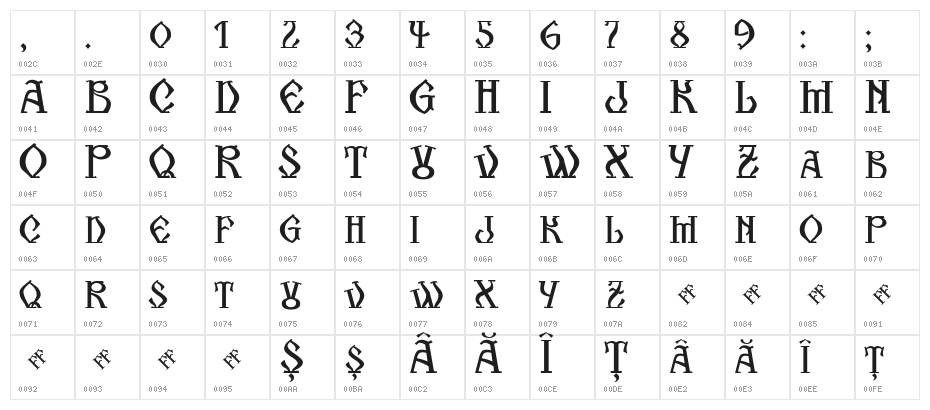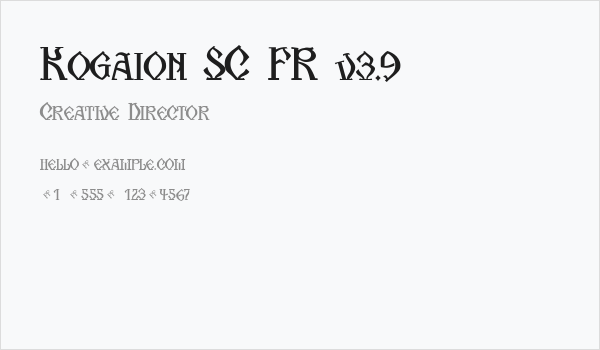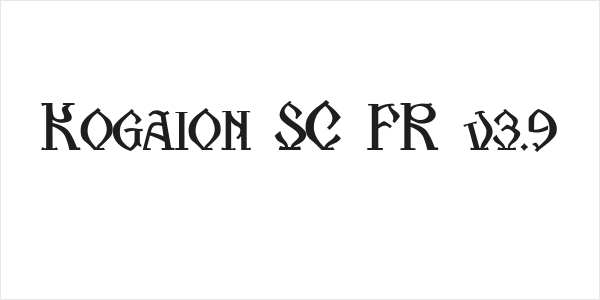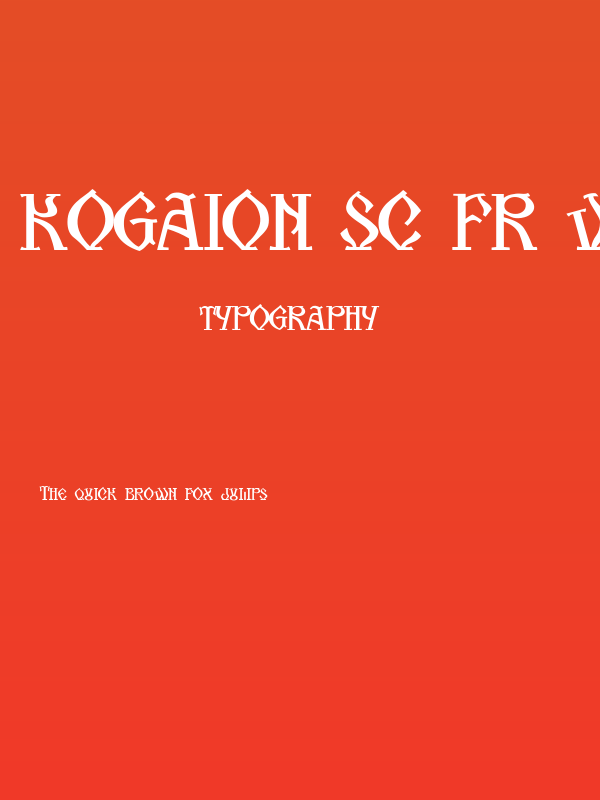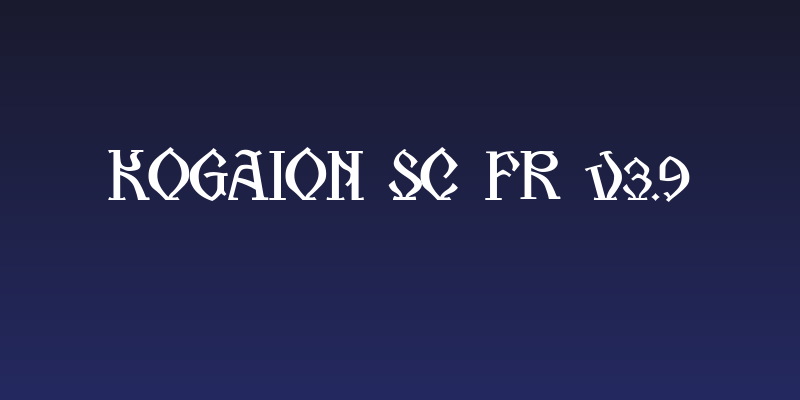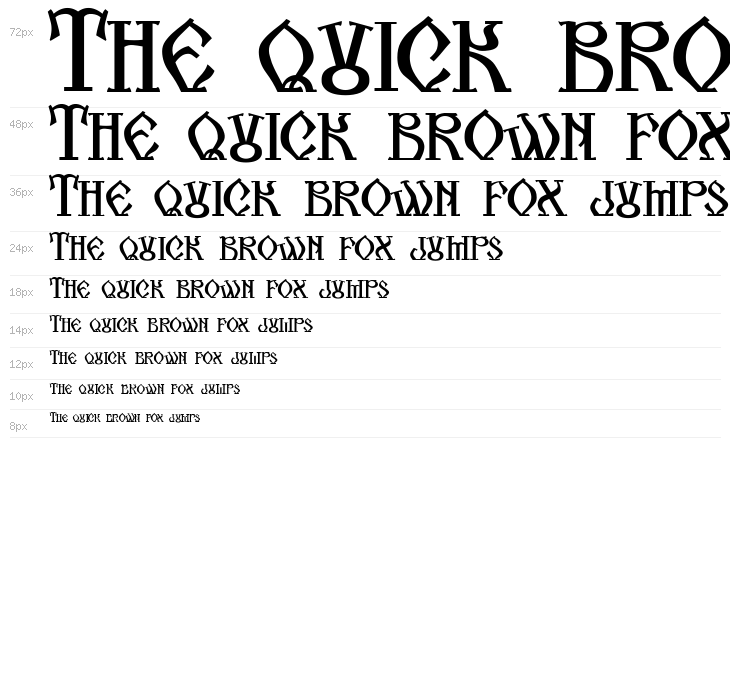
Kogaion SC FR v3.9 Font
Kogaion SC FR v3.9 Description
This font features a bold, angular design with a distinct medieval or gothic influence. The characters are highly stylized, with sharp edges and intricate details that give it a unique and dramatic appearance. The uppercase letters are particularly striking, with a strong presence and a sense of grandeur. The numbers and special characters maintain the same stylistic elements, ensuring consistency across all glyphs. This font is well-suited for projects that require a touch of historical or fantasy flair, making it ideal for themed designs or creative titles.
| Overall Style | Gothic, Medieval |
| Use Case | Headlines, Logos, Themed Designs |
| Proposed Projects | Ideal for fantasy book covers, medieval-themed events, or historical posters. |